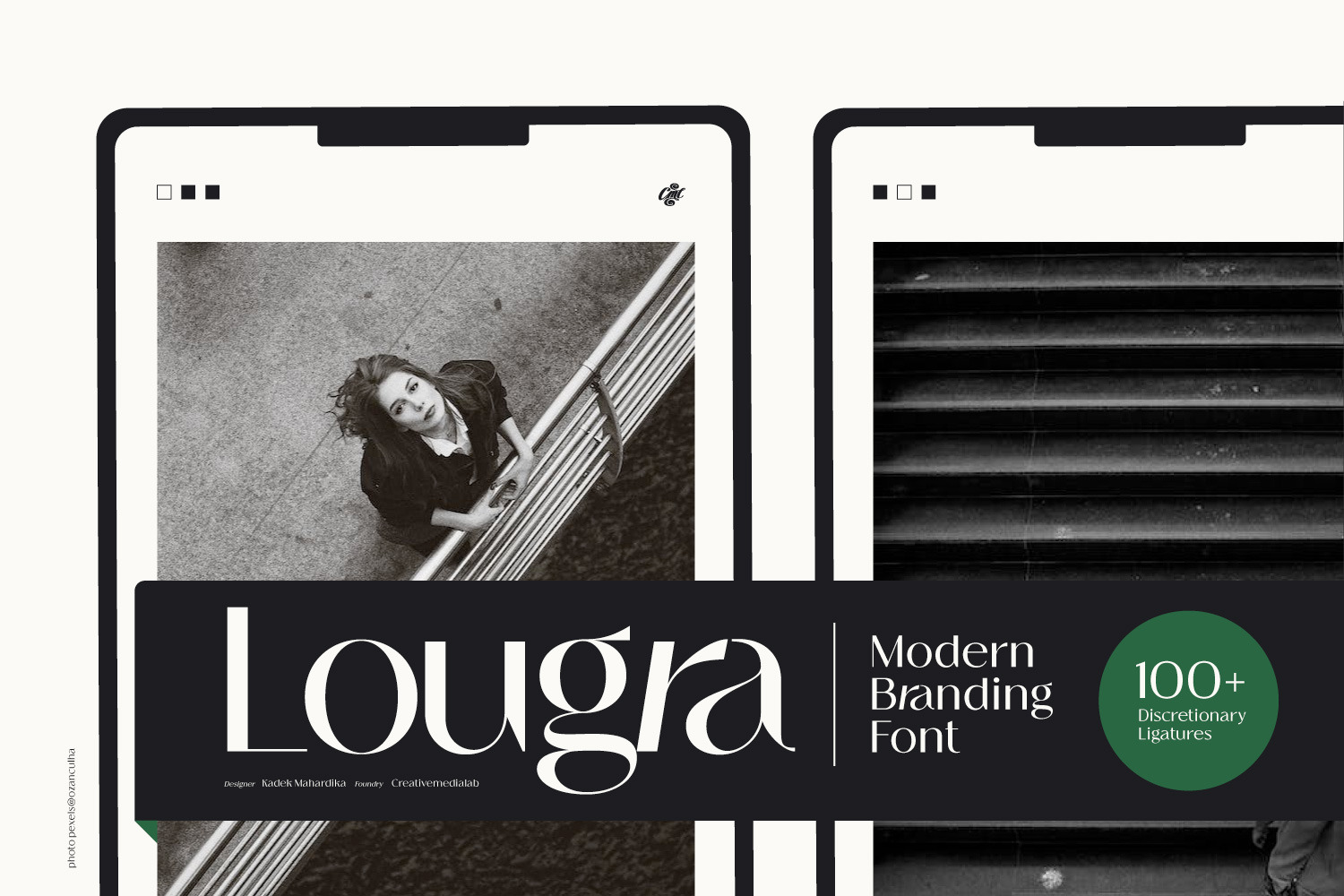
Lougra - Modern Branding Font
Monograms or connected letters are very popular; apart from looking elegant, the monogram will also present an impression that sticks in the eyes of the audience. Lougra is a font with many monograms or ligatures, making designing an initial or logo easier. Lougra is elegant and minimal. It has three contrast options which are display, regular and text.